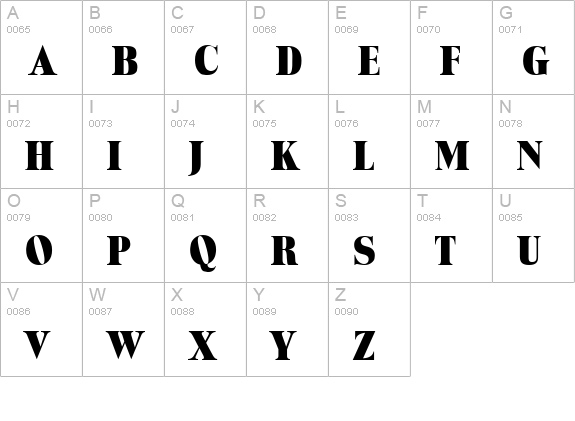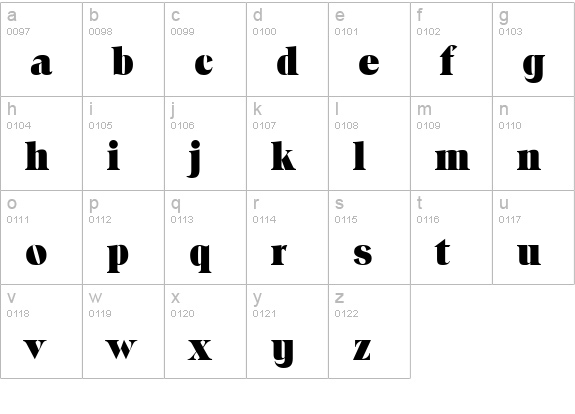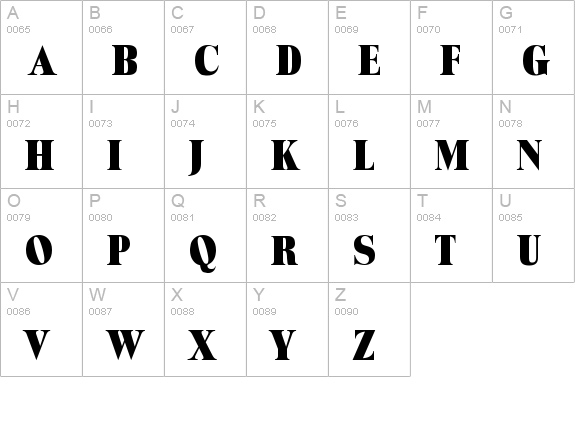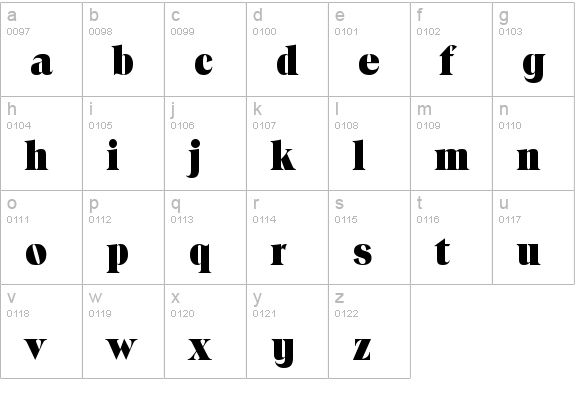
Toledo Heavy SF Bold is a heavy, high-impact variant in the Toledo typeface family \xE2\x80\x94 well suited to high-impact headlines, posters, and display advertising.
Toledo Heavy SF Bold is a powerful and impactful font that commands attention. With its bold and heavy appearance, it exudes confidence and strength, making it the perfect choice for headlines, titles, and branding projects. This font showcases a unique combination of sharp edges and sleek curves, creating a modern and cutting-edge feel. Its bold weight ensures that your message stands out, while the intricate details of each letter add a touch of sophistication. One of the best features of Toledo Heavy SF Bold is that it is freely available to download at FontsMarket.com. This means that you can easily access this font and incorporate it into your designs without any hassle. Whether you're a professional designer or a casual user, you can enjoy the versatility and impact of this font without breaking the bank. Toledo Heavy SF Bold is suitable for a wide range of design projects, from print materials like posters and brochures to digital media such as websites and social media graphics. Its bold and commanding presence will instantly grab attention and captivate your audience. So, if you're looking to make a bold statement and leave a lasting impression, Toledo Heavy SF Bold is the font for you. Don't miss the opportunity to enhance your designs with this visually striking and freely available font. Download it today from FontsMarket.com and elevate your creative projects to new heights.